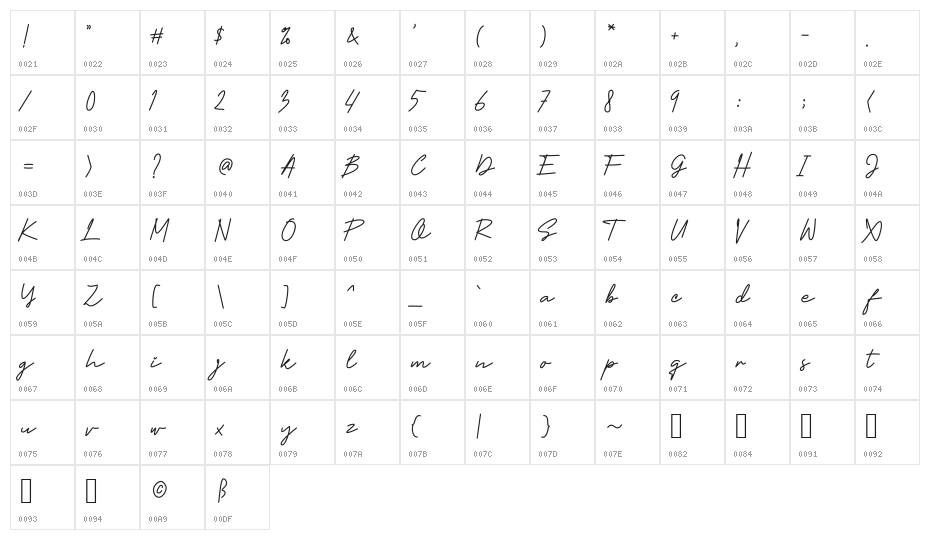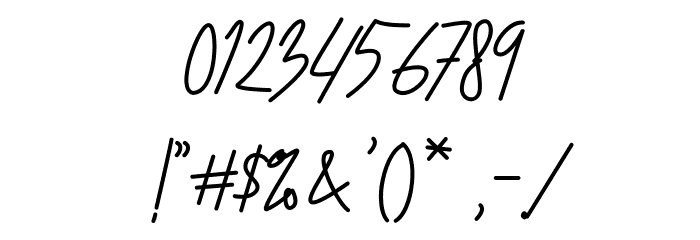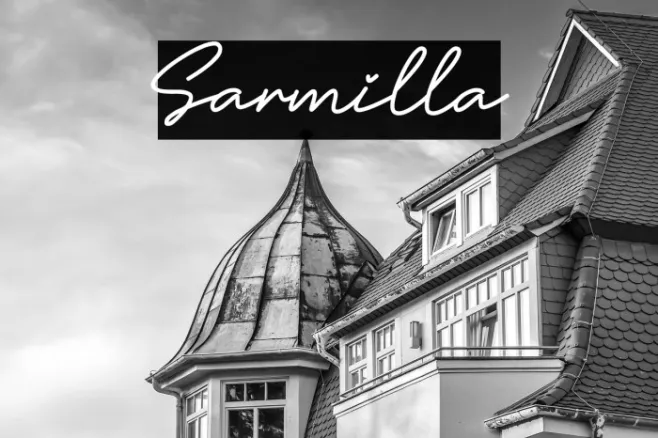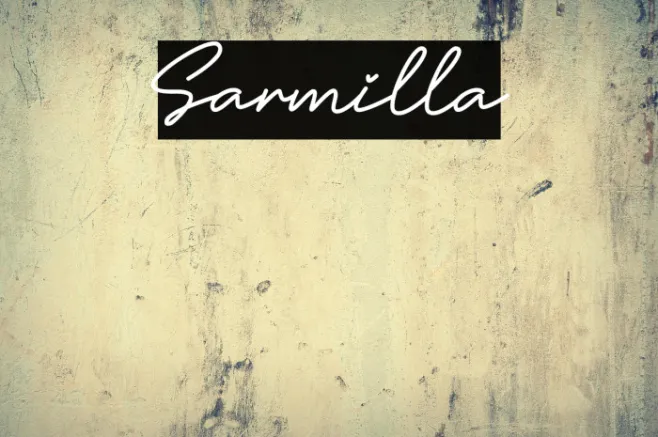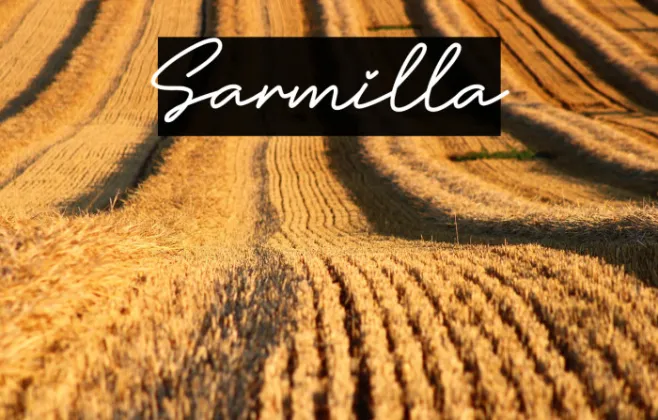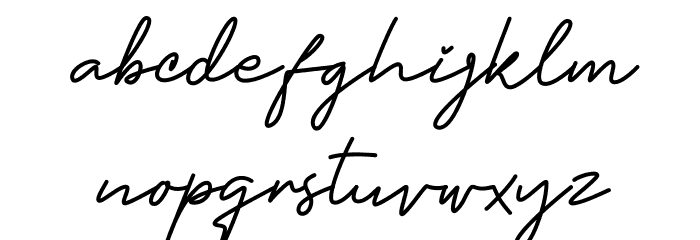
Sarmilla Font
Sarmilla Description
This font embodies a fluid and elegant handwritten style, characterized by its cursive script that mimics natural handwriting. The letters are connected, creating a seamless flow that enhances its readability and aesthetic appeal. The strokes are smooth and consistent, with a slight slant that adds a dynamic feel to the text. The uppercase letters are bold and prominent, while the lowercase letters maintain a delicate and refined appearance. Numbers and special characters are crafted with the same attention to detail, ensuring uniformity across all elements. This font is perfect for projects that require a personal touch or a sophisticated, yet approachable look.
| Overall Style | Elegant, Handwritten |
| Use Case | Logos, Invitations, Personal Branding |
| Proposed Projects | Ideal for wedding invitations, personal branding, greeting cards, and elegant stationery. |